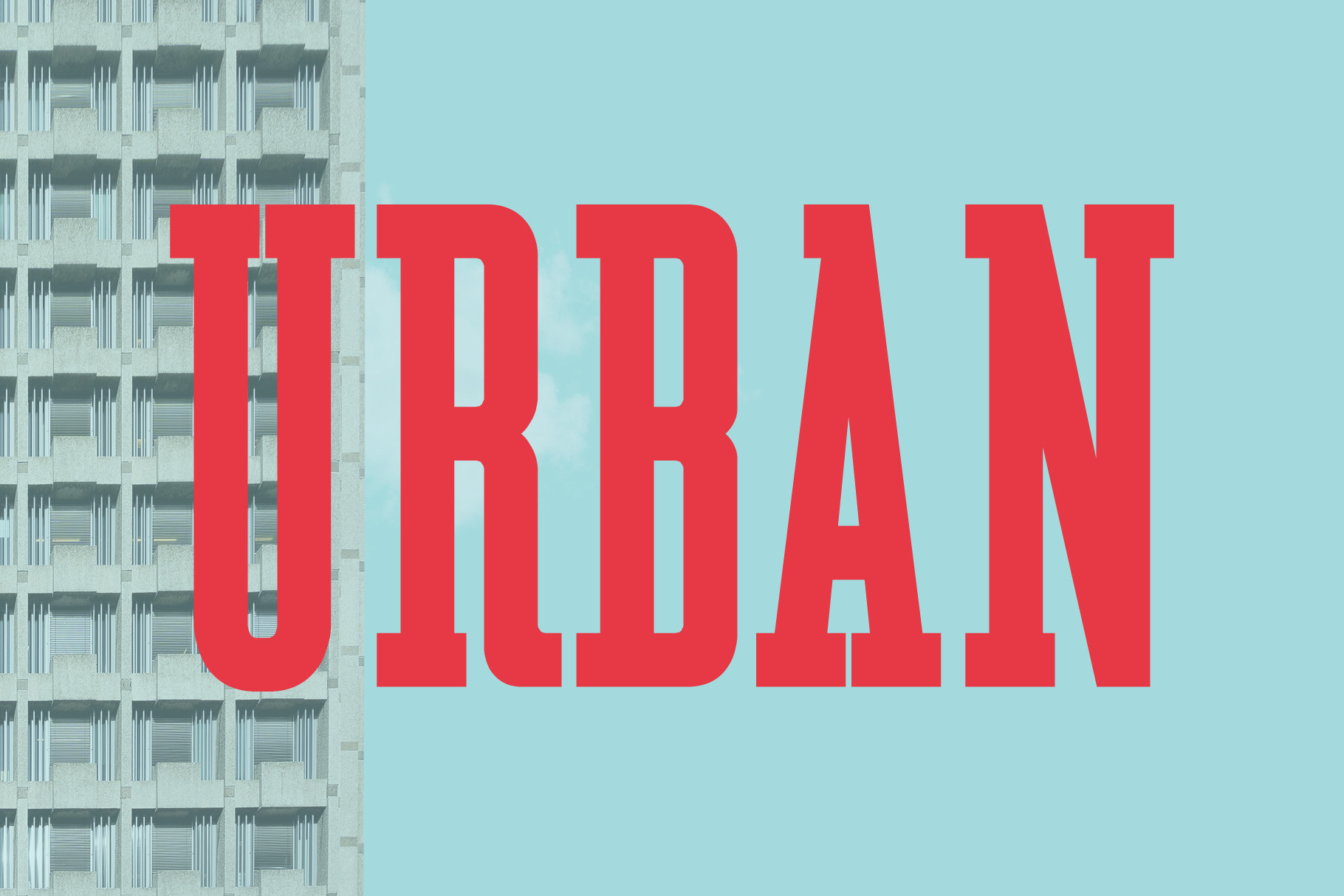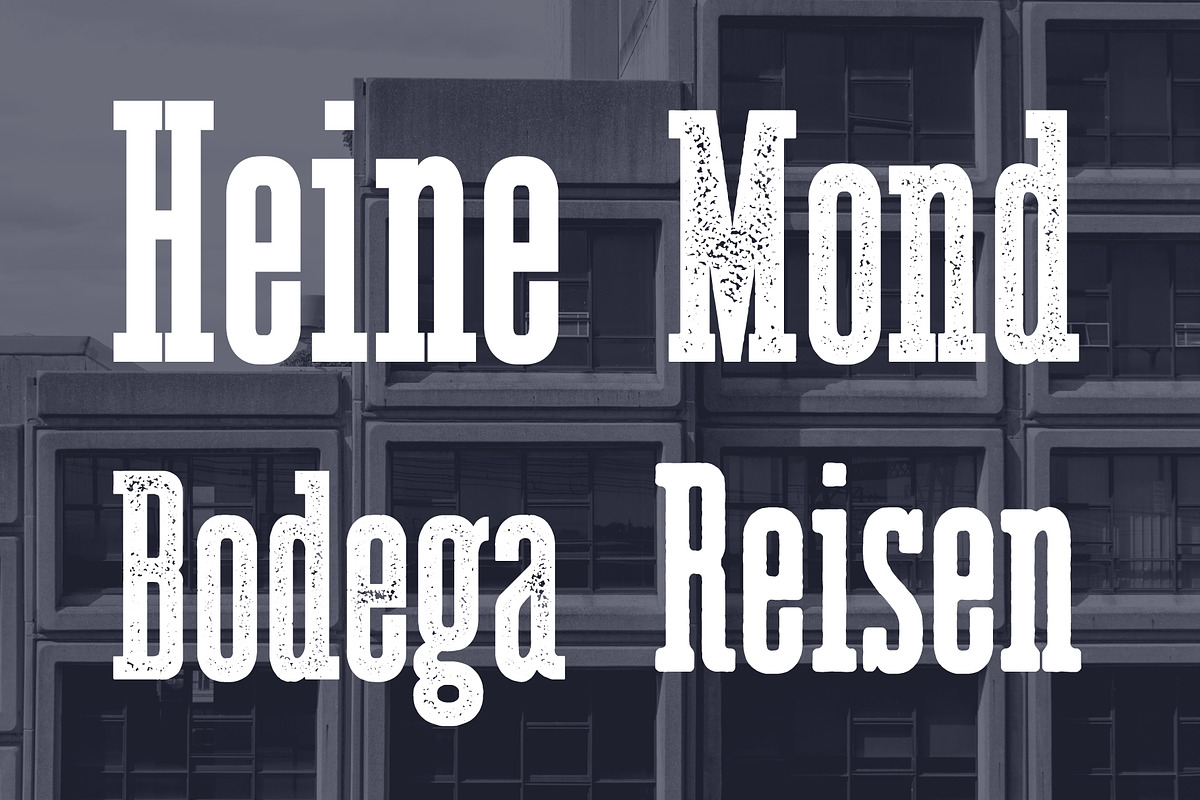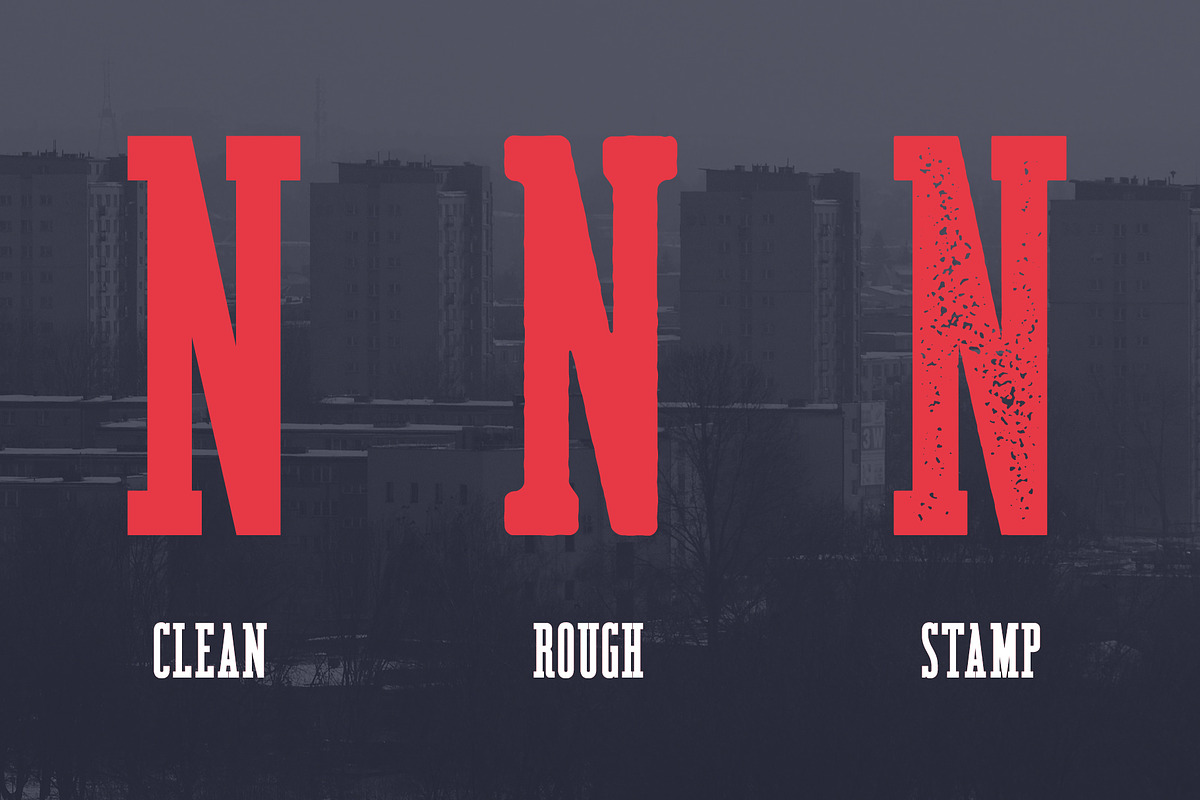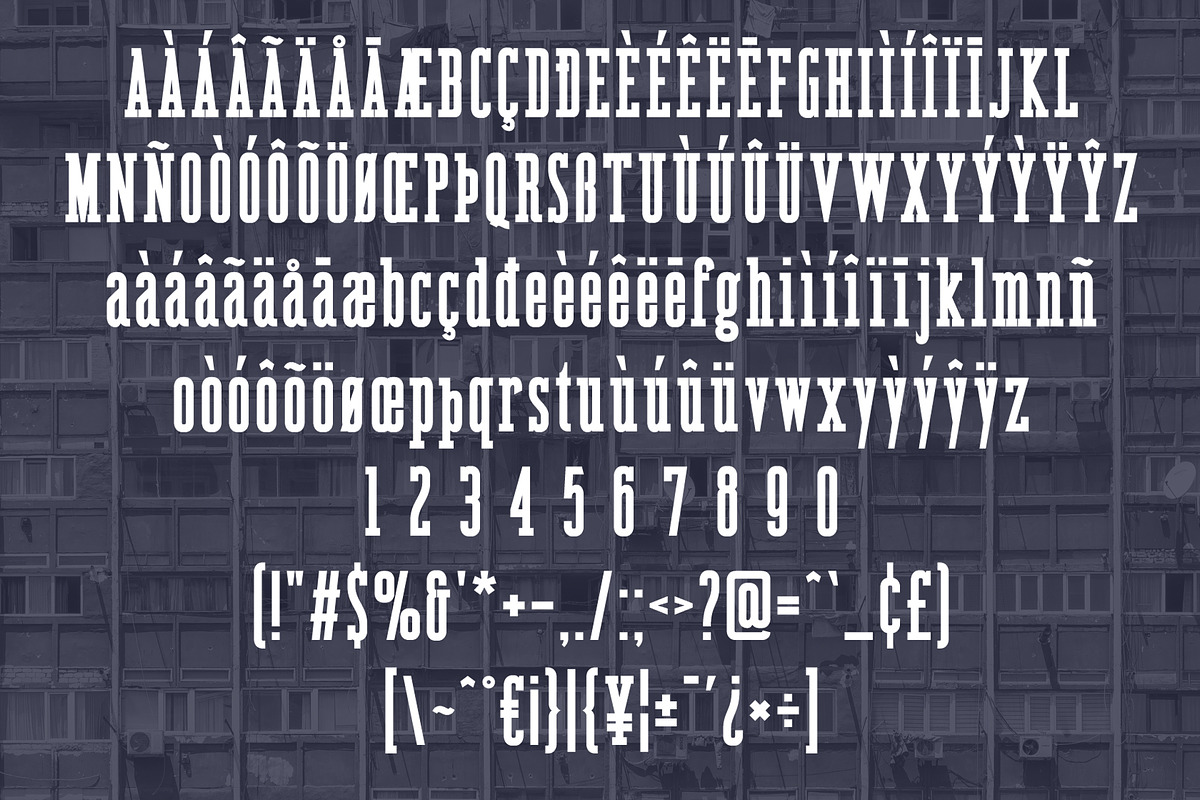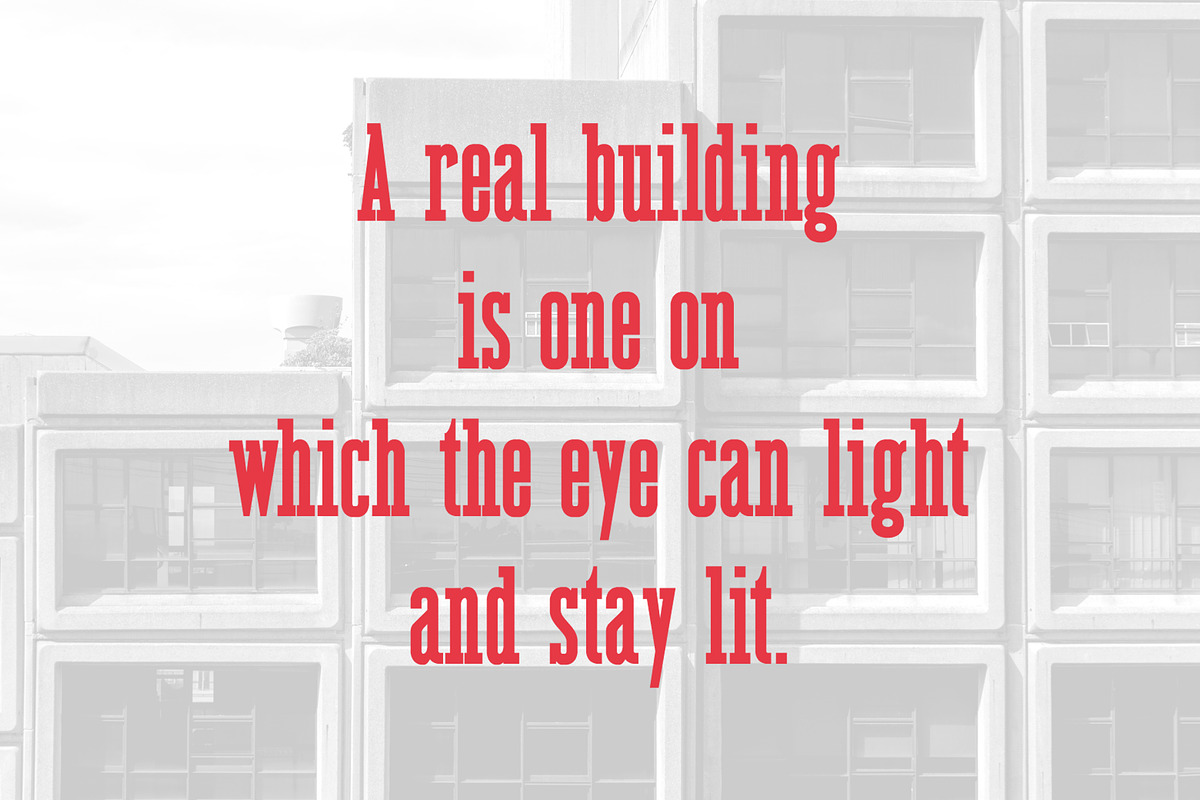
Urban - Brutalist Serif Font
Urban Serif is a font inspired by Eastern Europe brutalism in architecture. Simple and slightly angular shapes of serifs are based on the simplicity of blocks made in of large concrete panels, popular in the countries of the Eastern Bloc. Urban is great for logos, brandings and more. Enjoy!
Urban comes with 3 styles and oblique versions:
- clean
- rough
- stamp
Language support:
ÀÁÂÄÃÅĀ Æ Ç ÈÉÊËĒ ÎÏÍĪÌ Ñ ÔÖÒÓØÕ ÛÜÙU ŸÝỲŶ ÞŒ
àáâäãåā æ ç èéêëē îïíīì ñ ôöòóøõ ûüùu ÿýỳŷ þœ